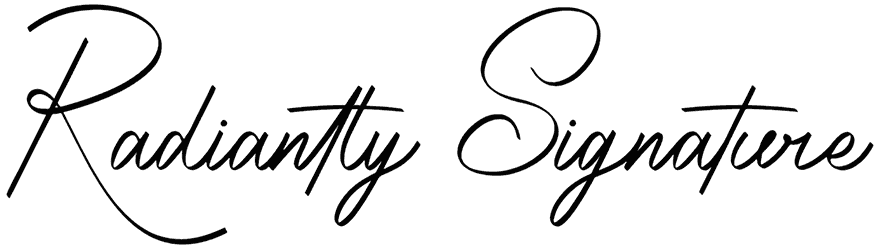
Radiantly Signature Font
Radiantly Signature is right at the point between the elegance and rhythm of old-style letters and lines inspired by calligraphers’ pens, which can turn any text into neat, simple, and clean writing.
This signature font has a sign of human identity that can establish a direct connection with viewers and lacks numbers. Therefore, it is used when you want to create a meaningful relationship between humans and other artistic elements such as music, poems, or invitations.